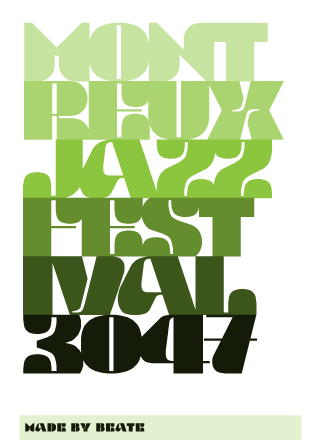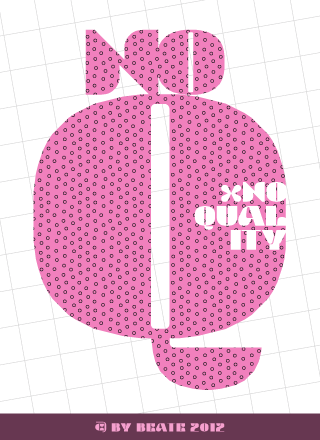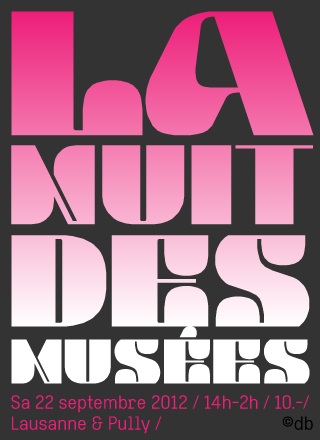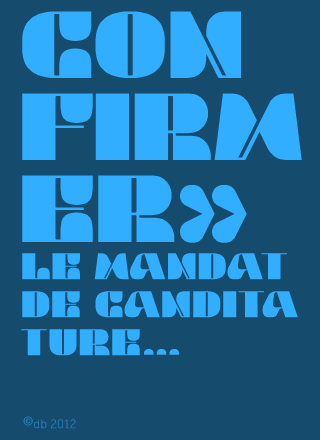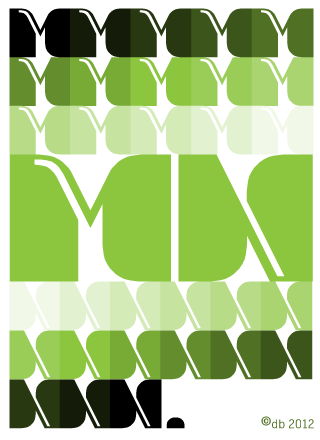
db Klacks
Another masterpiece. Very stylish. I love 'em all apart from Q. 10/10
Yes that's true. I am also not happy with it.
Beautiful! I think Q is fine (unless you changed it), A may be a bit wide and maybe T could be improved.
The R is just stunning.
Love this! The S is simply stunning
The new Q is perfect. Great job.
Beautiful work. I like those deep recesses of S,V,W,X,Y,Z. Have you considered to apply them to M,N so as to make them more legible and consistent with the rest of the set. 10/10
I think you're right for M/N. Thanks!
True Master Piece! Love the A. S,V,W,X,Y,Z,N work well. Not sure about M. It feels like N for me.
The new T is good, but M/N don't seem very recognizable now.
Wow! What a beauty. A definite 10/10.
Would the (slight) confusion between M and N be solved by making the left vertical stroke of the M square at the bottom? ... just a thought.
Do you think M would read a little better if it had a middle down spike? Just the suggestion of one, so it can't be seen as a K,X or N.
@thalamic: Thanks, I thought about the same M,N design. The original M (on the first demo picture) has better proportions for this.
Great font, love the M, W! Love those samples too...
I like a lot this Q!
You've done a great job. Is it influenced by Cannonball? http://www.myfonts.com/fonts/wiescherdesign/cannonball/
I'm sorry, but I fontstruct db Klacks from db Drops. Similarities exist everywere. Similar is not equal.